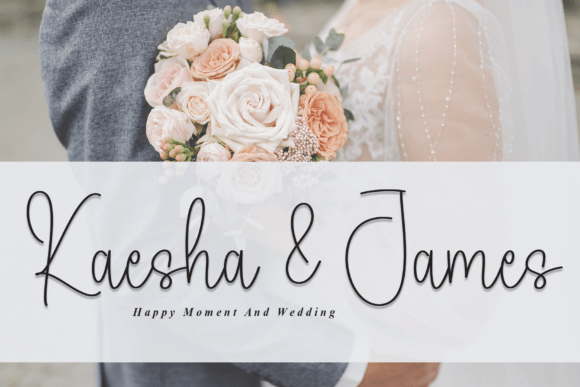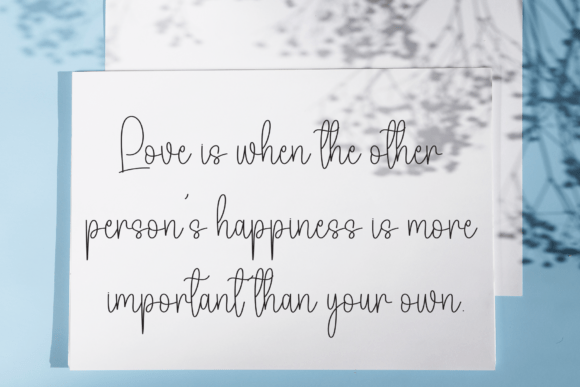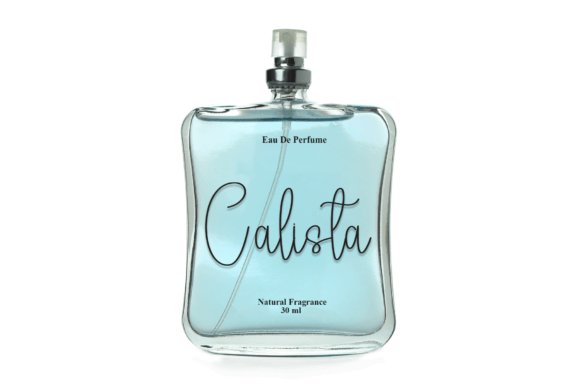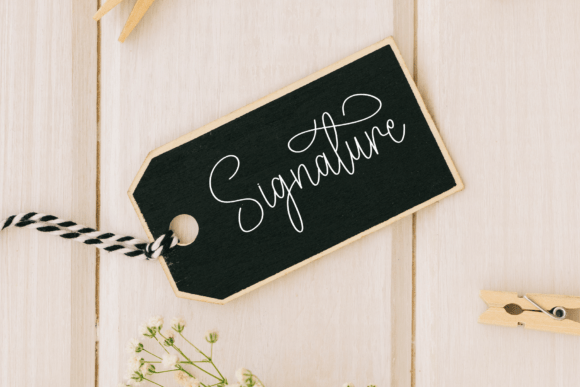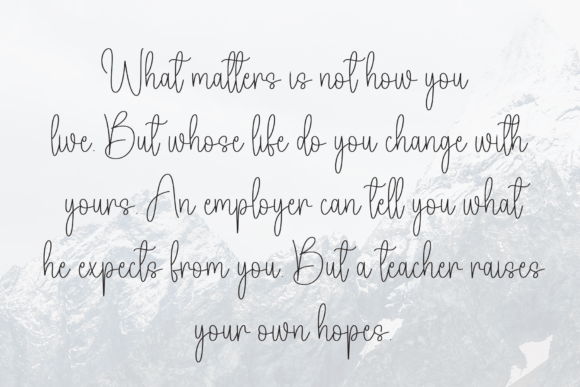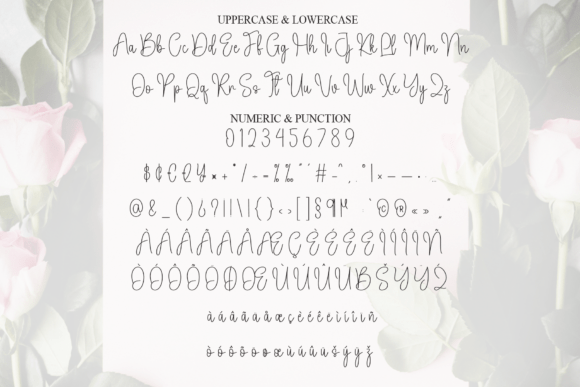
The Quest for the Perfect Valentine Font
Ah, the elusive perfect font. We’ve all been there – scrolling through endless font libraries, searching for that one typeface that will make our design project shine. I recall a particularly daunting experience when a client requested a custom wedding invitation design. The theme was modern elegance, and I was tasked with finding a font that exuded sophistication and romance. After hours of searching, I stumbled upon Better Valentine – a stylish handwritten script font that would change the game.
First Impressions: A Love Letter to Better Valentine
Better Valentine is more than just a font – it’s an experience. Its flowing strokes and organic curves bring a sense of warmth and refinement to any project. This elegant script font combines the best of both worlds: classic sophistication and modern flair. Whether you’re working on branding, invitations, or social media, Better Valentine is the perfect companion.
- ✨ Elegant and refined, perfect for high-end projects
- 💫 Supports OpenType features, glyphs, and stylistic alternates
- 🎨 Versatile and adaptable to various design styles
Small Quirks and Limitations:
⚠️ While Better Valentine is an exceptional font, it’s not without its limitations. Some users may find the font’s elegance and refinement make it less suitable for extremely casual or playful projects. Additionally, 🤔 the font’s script nature may require some manual adjustments to ensure optimal readability.
The Story Behind Better Valentine
Better Valentine was designed with love and care by a talented type designer who sought to create a font that would bring elegance and sophistication to any project. Inspired by classic script fonts and modern design trends, Better Valentine is the result of a meticulous design process that aimed to create a truly unique and versatile typeface.
Q: What makes Better Valentine suitable for branding projects?
A: Better Valentine’s elegant and refined design makes it perfect for branding projects that require a touch of sophistication and luxury.
Q: Does Better Valentine support OpenType features?
A: Yes, Better Valentine supports OpenType features, glyphs, and stylistic alternates, making it a versatile and adaptable font for various design projects.